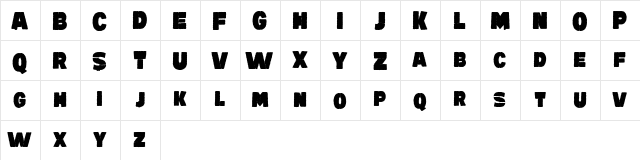
Suspiria Vampira Rough DEMO Regular
Design Context for Suspiria Vampira Rough DEMO Typeface
Suspiria Vampira Rough DEMO trades polish for personality, using distressed and eroded forms to bring grit and attitude to creative work.
Suited to punk-influenced zines, underground music branding, streetwear, and raw, anti-corporate design.
Pro Tip: Pair Suspiria Vampira Rough DEMO with intentionally raw or lo-fi design elements. Fighting against it with overly polished surroundings will undermine its personality.